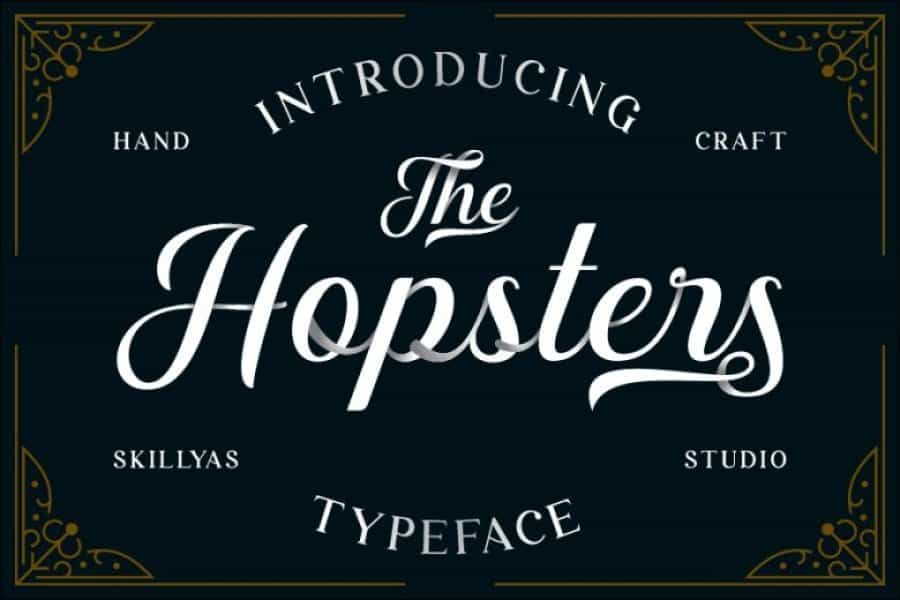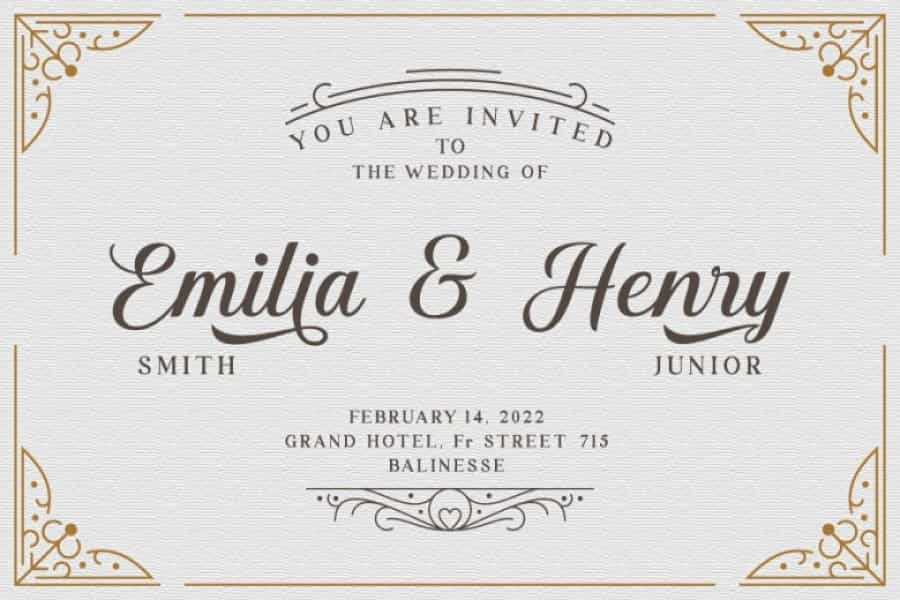
Discover Hopsters Font, part of the Calligraphy collection—a versatile and unique font perfect for adding a personal touch to your projects. Download it for free and enjoy crafting designs with style, from invitations to social media posts. This font is available exclusively for personal use, giving you the freedom to create without limits. Unlock your creativity with Hopsters Font today!
Hopster is an elegant and contemporary calligraphy font. With its elegant, contemporary and elegant appearance, Hopster can be utilized for logo design, branding invitations, stationery designs, wedding designs as well as social media posts! Additionally, Hopster can be PUA encoded for ease of accessing all symbols and washes!